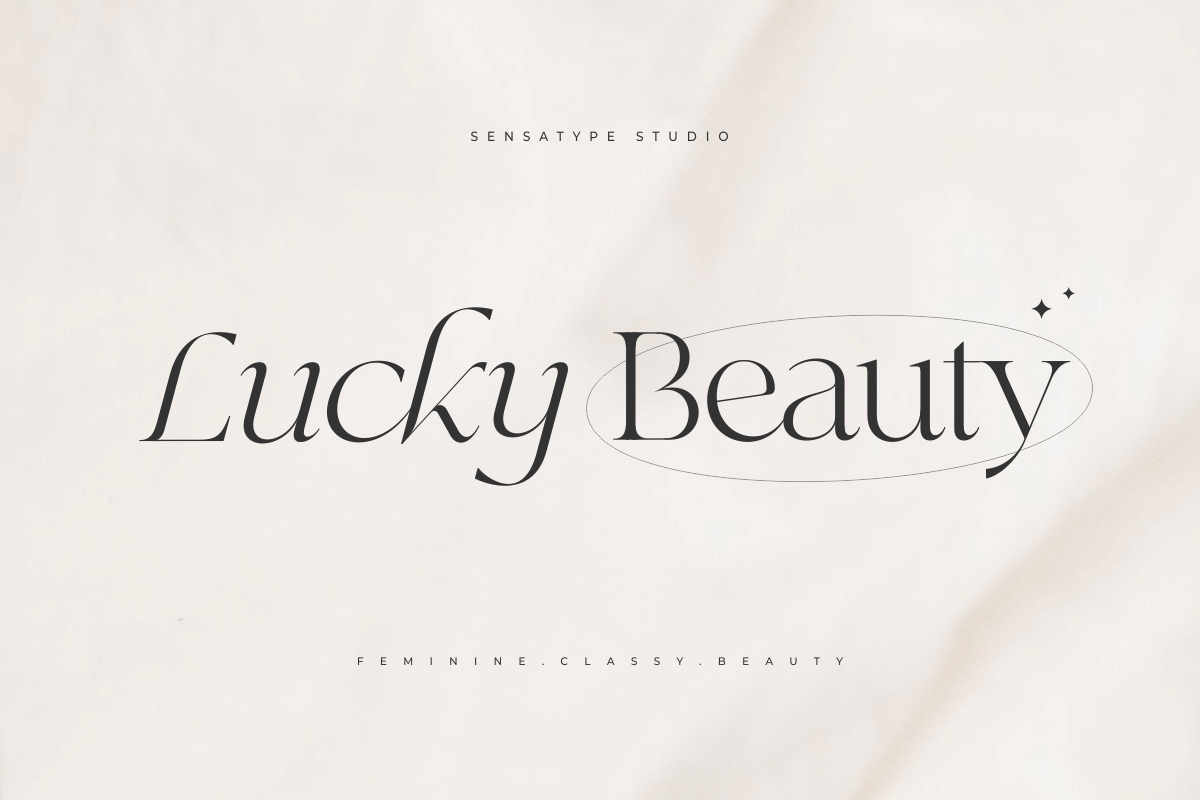
Lucky Beauty
-Classy Beauty Serif Font
Lucky Beauty - Classy Beauty Font
Lucky Beauty is an elegant beauty serif font featuring a stylish combination of regular and italic styles. Designed for premium branding projects, this typeface creates a sophisticated and feminine visual identity with a classy and refined appearance.
Perfect for beauty brands, fashion logos, wedding invitations, packaging, editorial designs, and luxury branding projects. Lucky Beauty helps designers create elegant typography compositions with a balance between classic serif details and modern aesthetics.
With its complementary regular and italic styles, Lucky Beauty gives designers more flexibility to create beautiful and memorable brand identities.